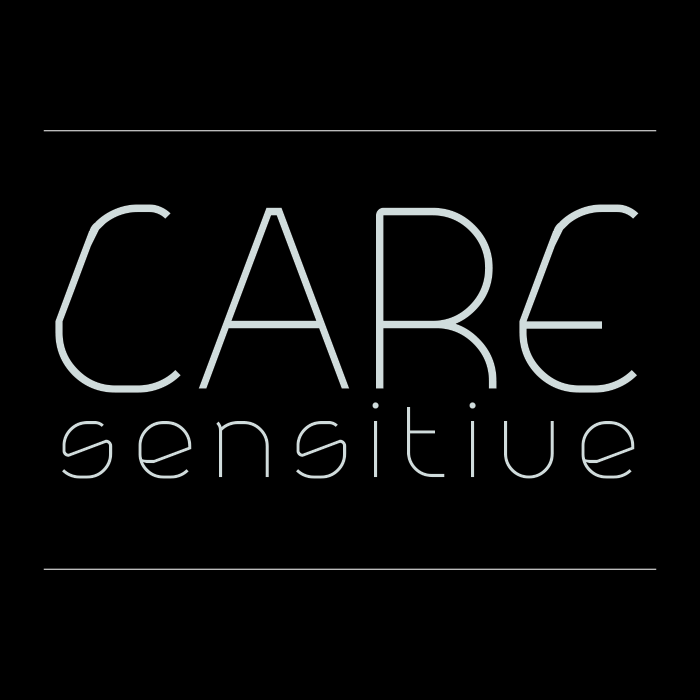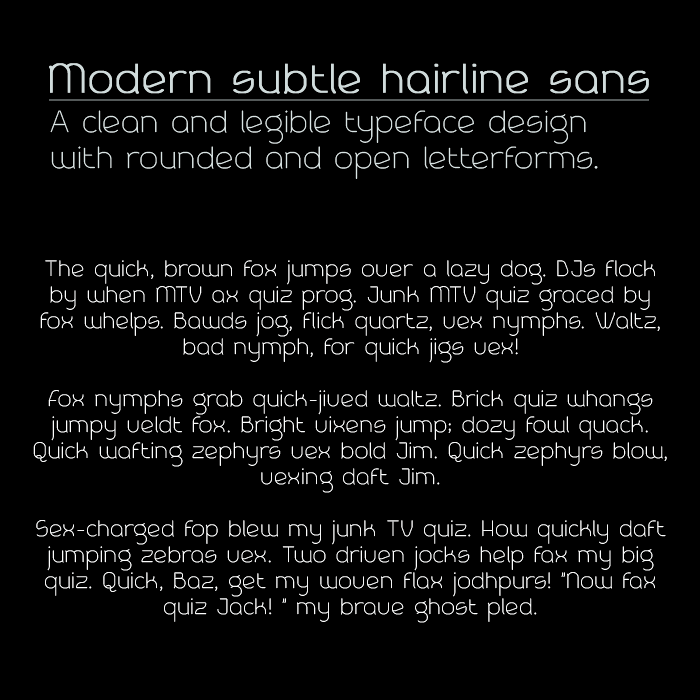
STF_CARE SENSITIVE - A modern hairline sans style typeface.
design grid: 3,5 × 4,5 units
brick size filter: 2 × 2
stroke weight: 1/8
I tried to incorporate rounded letter parts and corners but this was very tricky to pull off with this thin stoke weight. The font works best at small size due to very small imperfctions.
& and £ are brilliant.
Amazing!
Awesome!
Good font. Congrats on the TP!
a beautiful font, i especially like the ampersand
Adore the 'g'. I am a nerd for lineal fonts, 10/10.
Okay how do people do this with the limtations of FontStruct??! Is there something I'm missing out on?!!